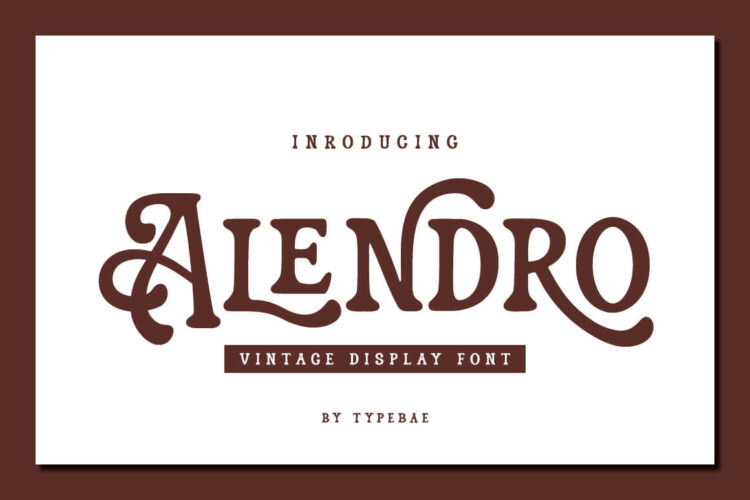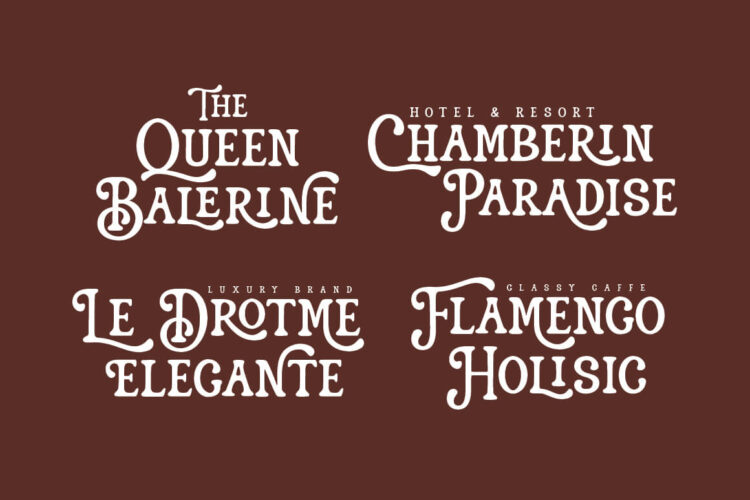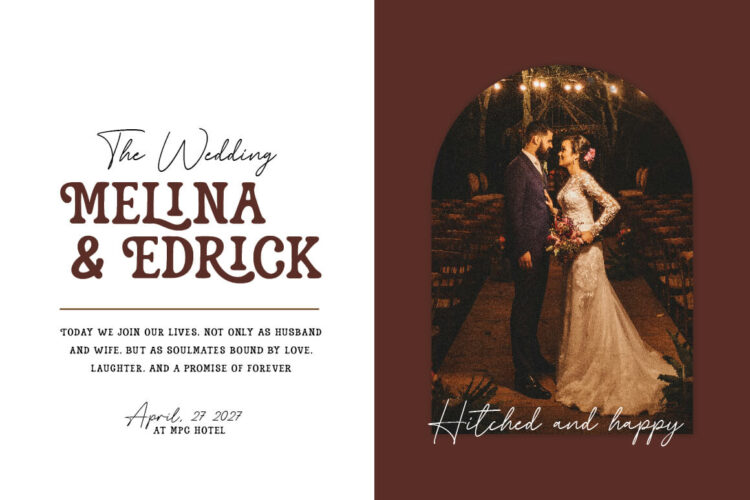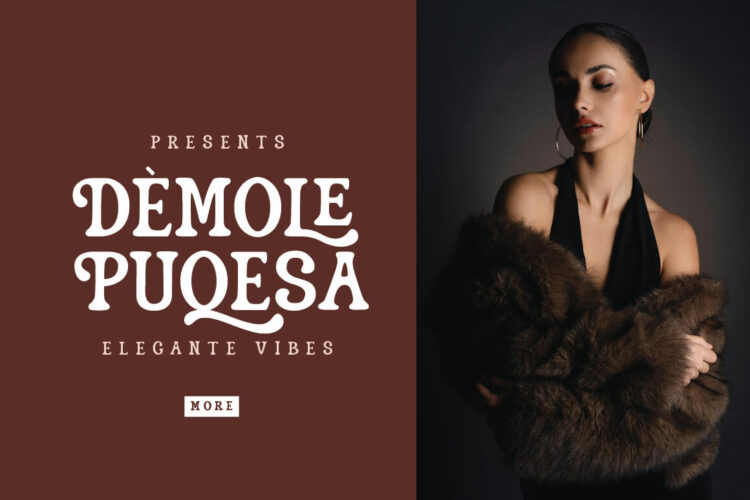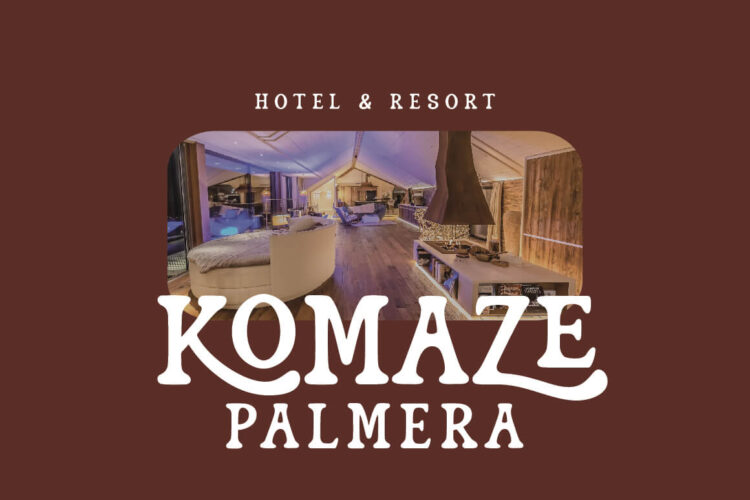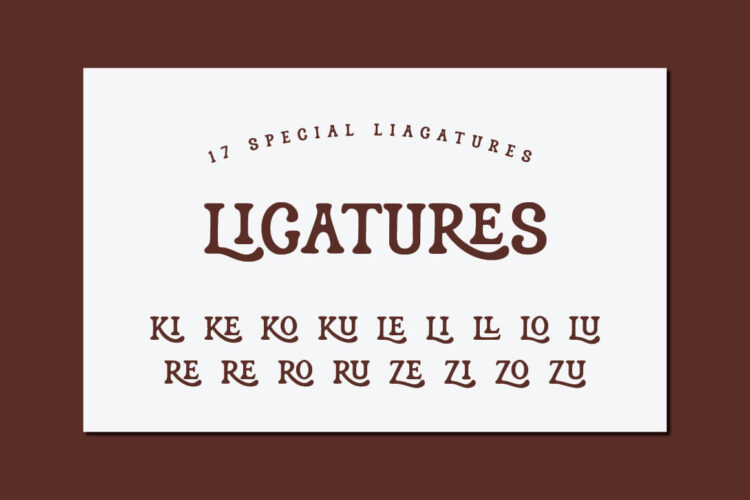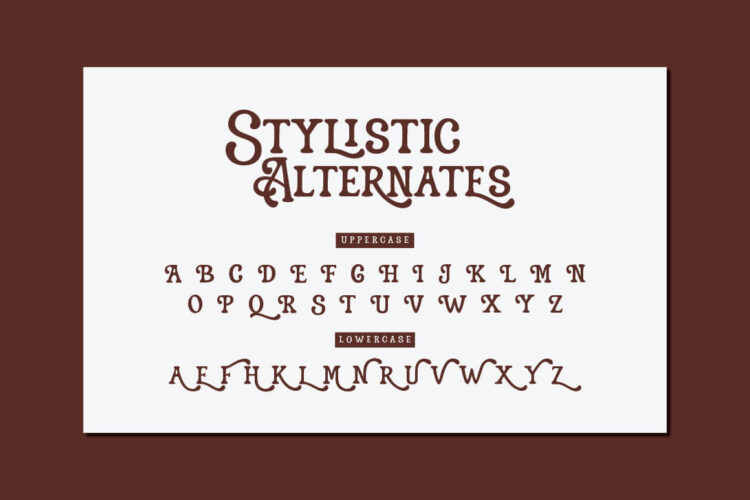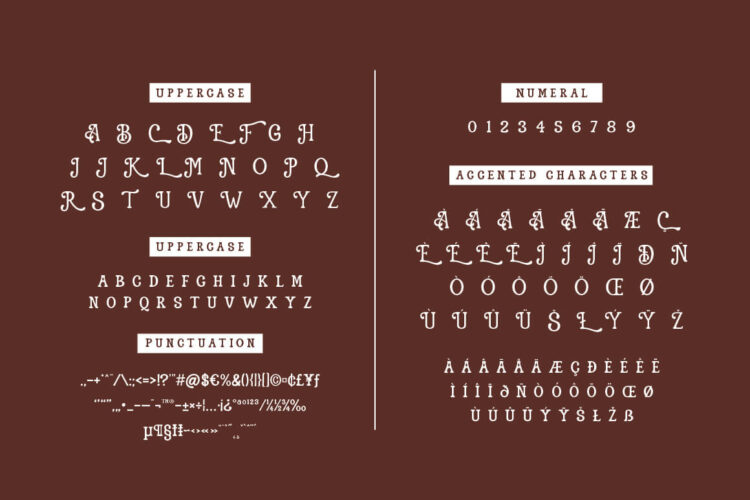
Vintage Display Font
Alendro
Alendro is a stylish vintage display font that brings a luxurious retro and playful vibe to any design. With graceful curves and ornate letterforms, it’s perfect for branding, packaging, logos, headlines, and boutique labels. Whether you’re crafting a classy cafe identity or a high-end fashion label, Alendro adds a timeless, artistic touch to elevate your visual message.
Features:
• Character set A-Z with special uppercase letters
• 17 Ligatures
• Stylistic Alternates
• Numerals & Punctuation
• Accented Characters